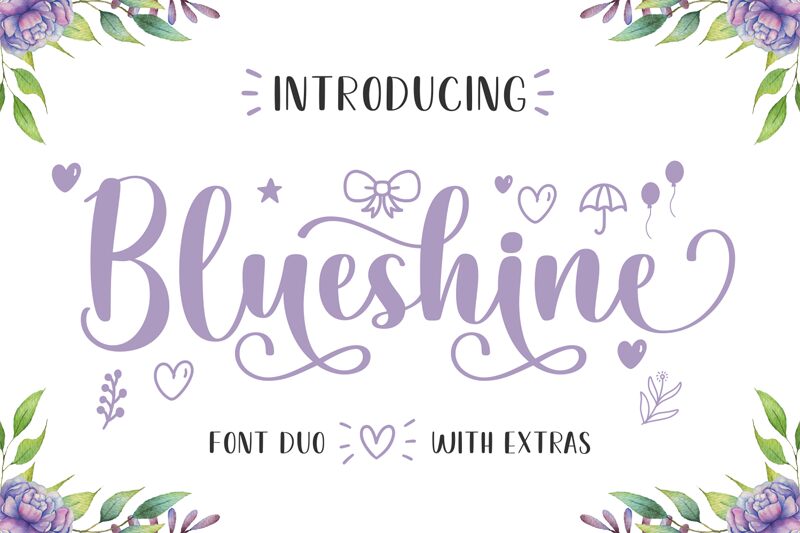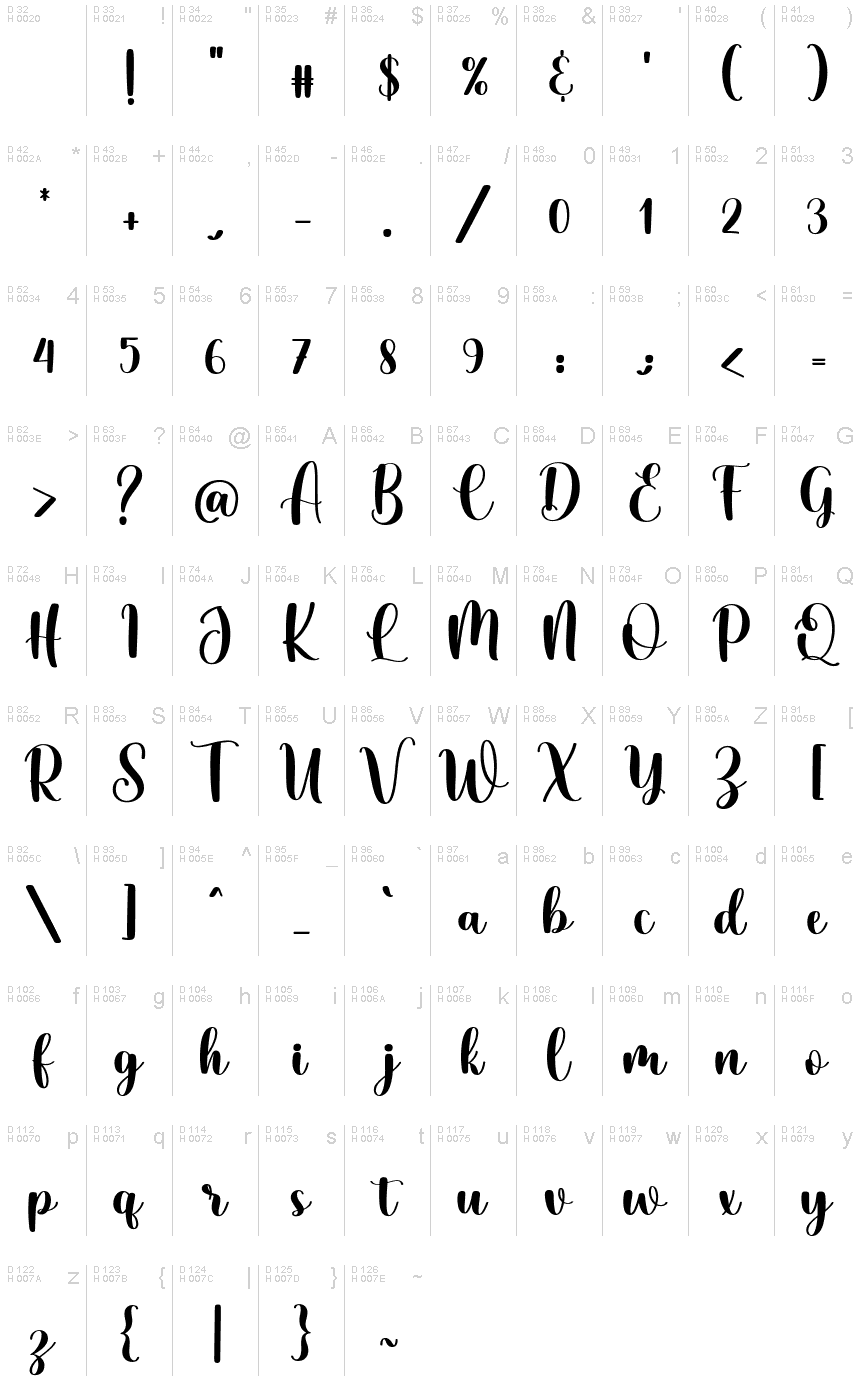
Blueshine emerges as a captivating calligraphy font meticulously crafted by the talented Makashi. Its semi-light weight lends an air of grace and finesse, embodying a blend of traditional elegance and contemporary flair. With its flowing lines and sophisticated curves, Blueshine offers a visual symphony that enhances the aesthetic appeal of any creative endeavor.
The versatility of Blueshine lies in its ability to add a personal touch to various design projects. Whether it's wedding invitations, branding materials, or artistic compositions, this font infuses a sense of intimacy and charm. Its calligraphic style resonates with those seeking to convey beauty through typography, making it an ideal choice for designers aiming to create standout pieces with a human touch.